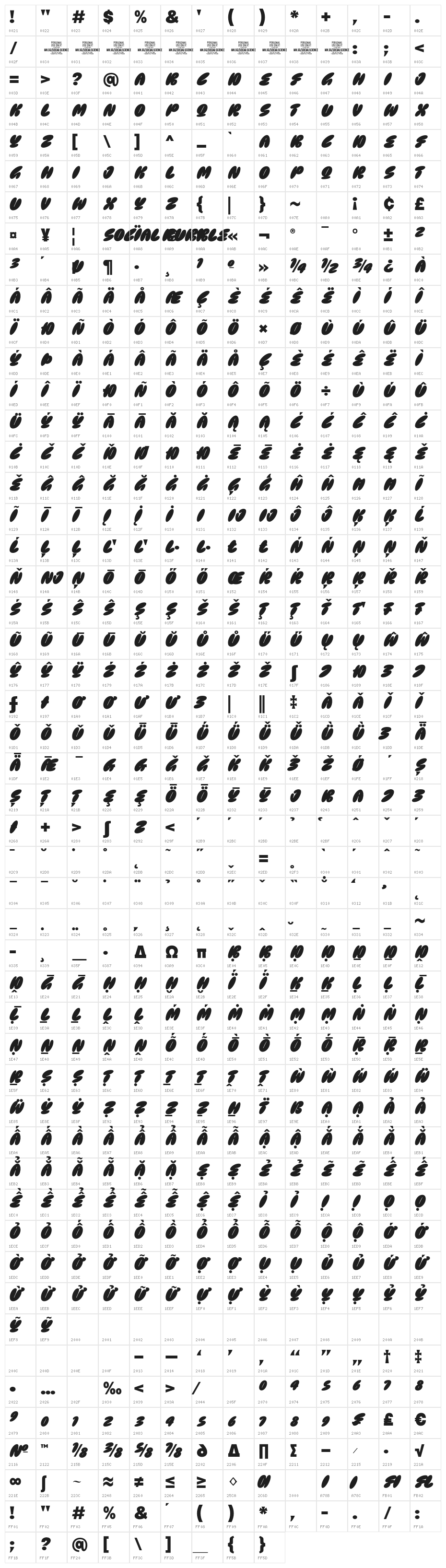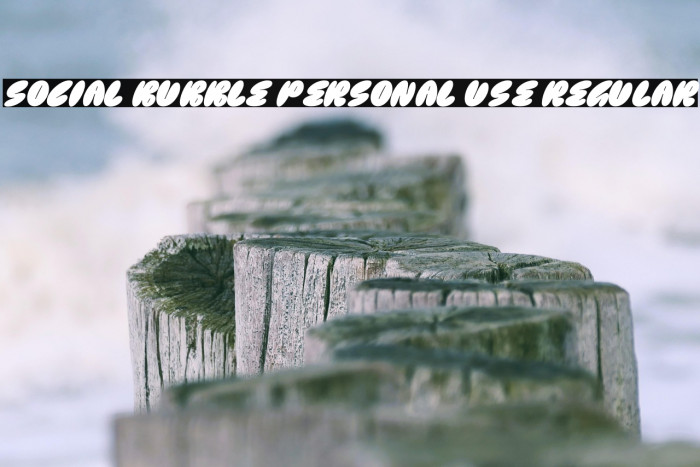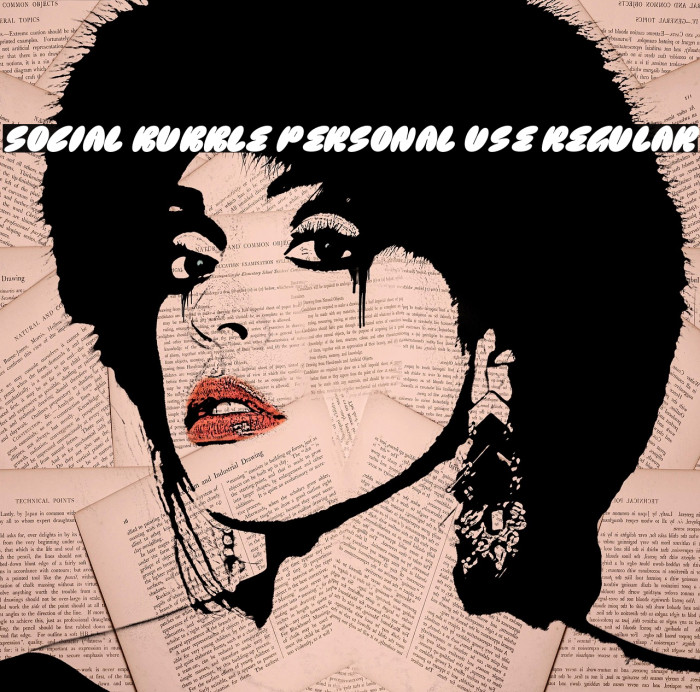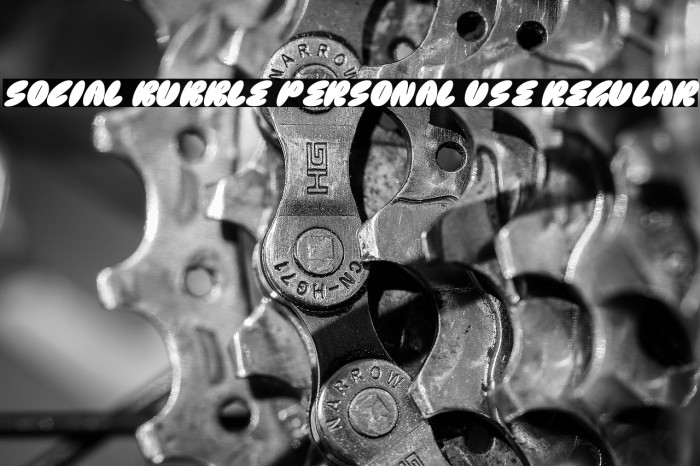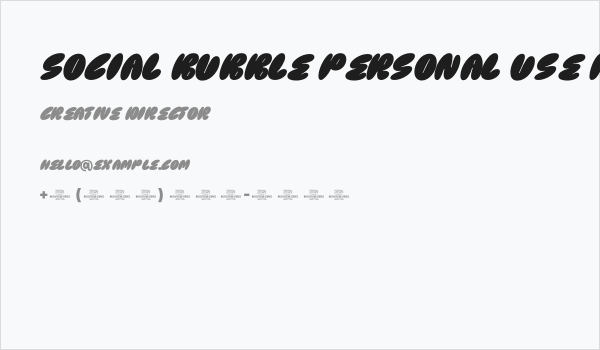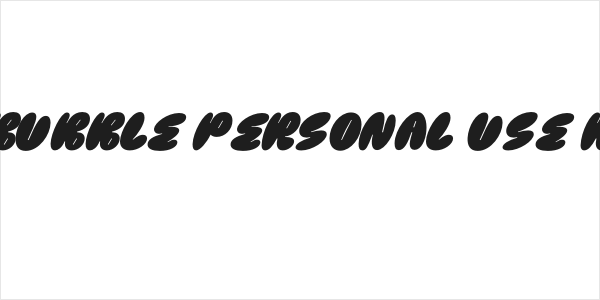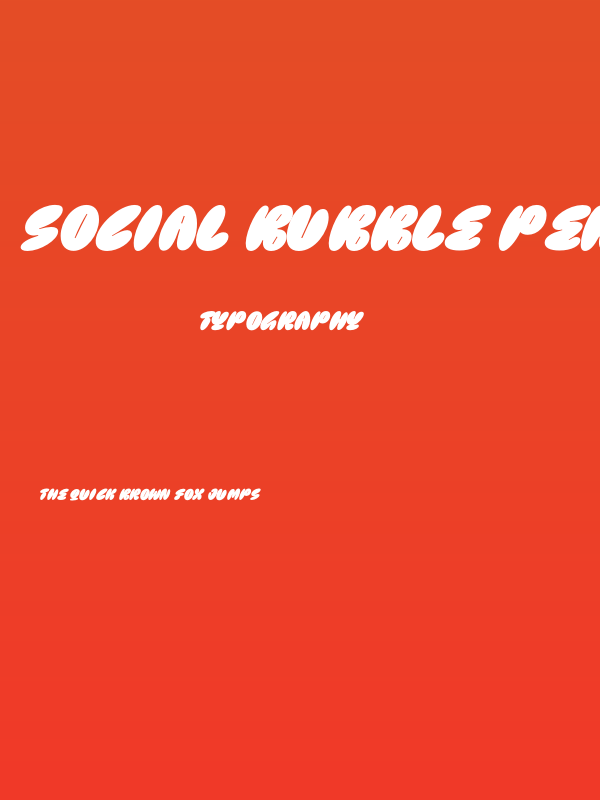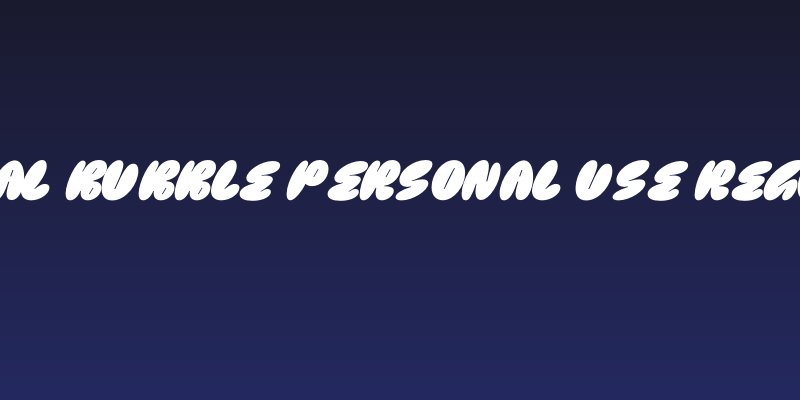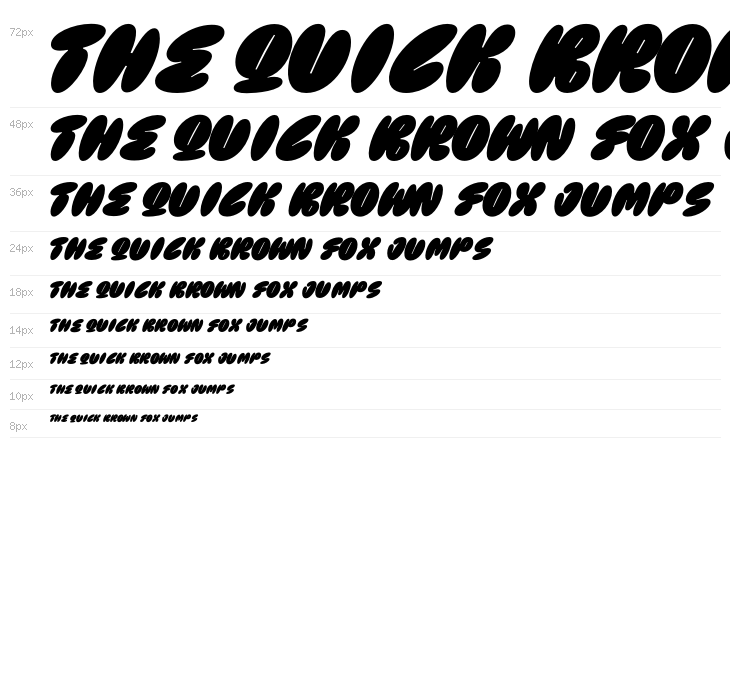
Social Bubble PERSONAL USE Regular Font
Social Bubble PERSONAL USE Regular Description
This font features a bold and playful design with rounded, bubble-like characters. The letters are thick and have a smooth, flowing style that gives them a lively and energetic appearance. The uppercase and lowercase letters maintain a consistent style, with the lowercase mirroring the uppercase in form. The numbers and special characters are equally bold and rounded, ensuring a cohesive look across all glyphs. This font's unique style makes it stand out, offering a sense of fun and creativity.
| Overall Style | Playful, Energetic |
| Use Case | Logos, Posters, Invitations |